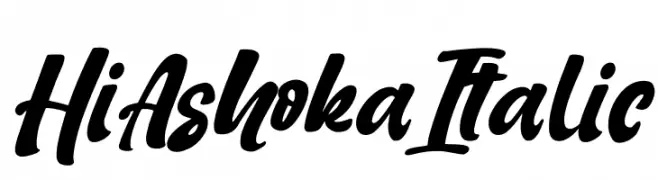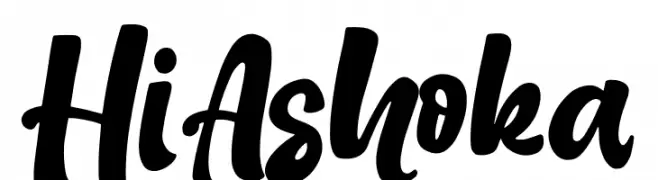
A lively and flowing script font with elegant, interconnected letters.
A dynamic and flowing script font with elegant cursive letterforms.
A playful and elegant handwritten script font.
A bold, expressive handwritten font with dynamic strokes.
A bold, italic script font with dynamic curves and a playful style.
A bold, cursive script font with interconnected letters and elegant flourishes.
A cursive, elegant font with a handwritten style.
A playful, handwritten font with bold and flowing strokes, perfect for informal and creative projects.